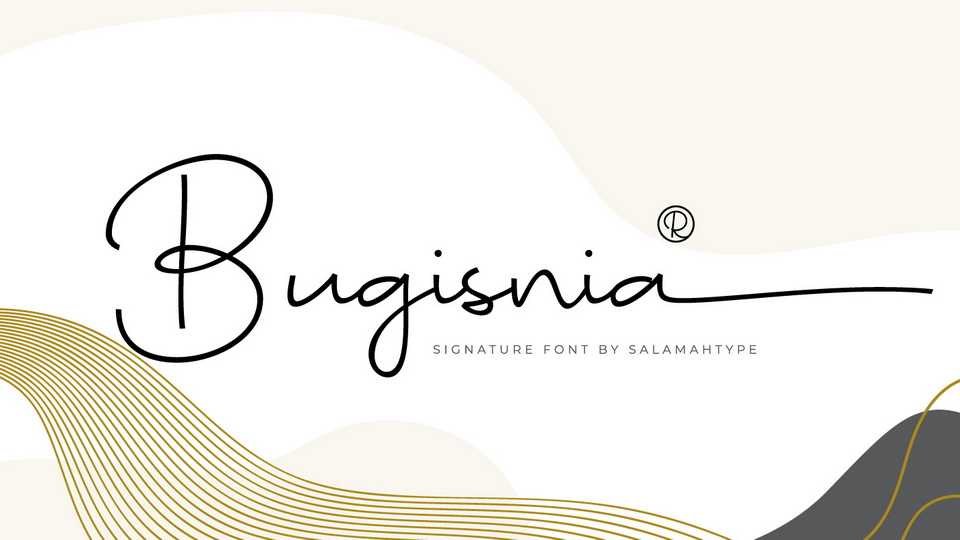
Download Bugisnia Script font, a signature style script typeface, featuring a lovely natural flow. Use this font for your designs and explore its endless possibilities.